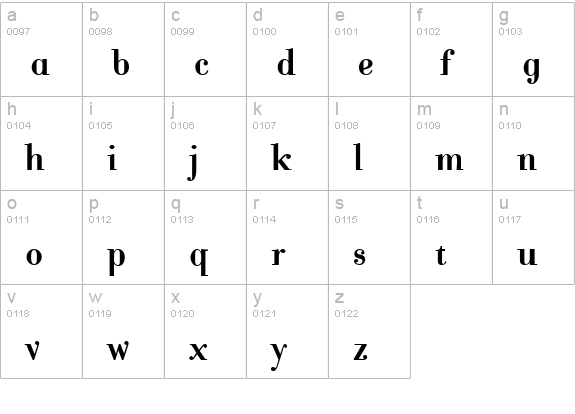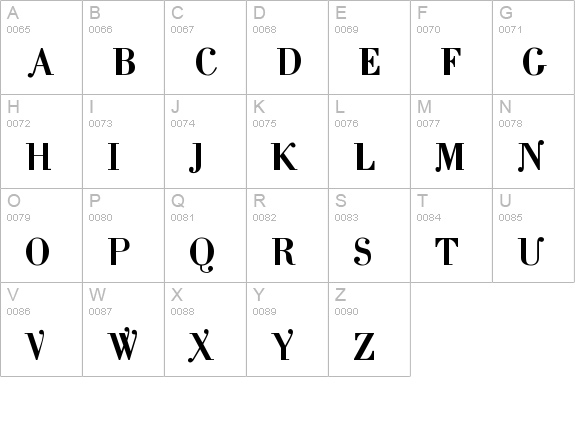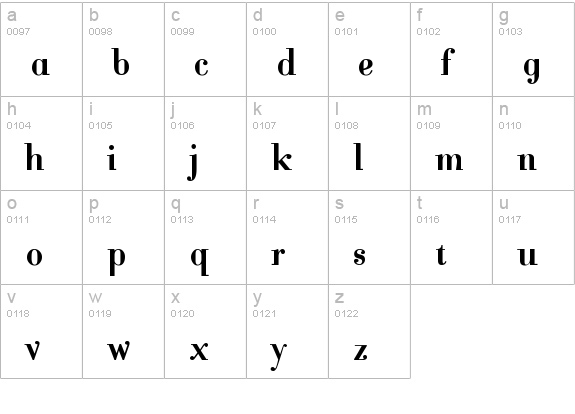
CantabileDemi Font Details
Introducing CantabileDemi font, a versatile and elegant typeface that exudes sophistication and charm. With its delicate curves and strong presence, CantabileDemi is perfect for adding a touch of elegance to any design project. This font strikes the perfect balance between classic and modern, making it ideal for a wide range of applications. What sets CantabileDemi font apart is not just its timeless appeal, but also the fact that it is available for free download at FontsMarket.com. This means that you can add this beautiful font to your collection without any cost, making it a valuable addition to your design resources. Whether you are designing a logo, creating invitations, or crafting a website, CantabileDemi font will bring a touch of sophistication to your work. Its versatility and beauty make it a must-have for any designer looking to elevate their projects to the next level. Download CantabileDemi font today and see the difference it can make in your designs.